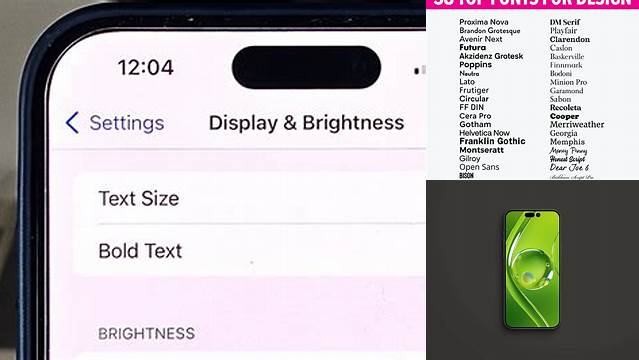
Best Fonts For IPhone 15 Pro: Enhance Readability
Are you looking to enhance your viewing experience on your new iPhone 15 Pro? One of the most impactful ways to do this is by choosing the right font. Fonts play a crucial role in readability, aesthetics, and overall user experience. With the iPhone 15 Pro boasting a stunning display, selecting the perfect font can truly elevate your device's visual appeal and usability. In this article, we will delve into some of the best fonts available for your iPhone 15 Pro, exploring both system fonts and third-party options to help you find the perfect match for your style and needs. We'll consider factors like legibility, character, and how well they perform across various apps and screen sizes. Whether you're aiming for a modern, classic, or unique look, we've got you covered. So, let's jump right in and discover the fonts that will make your iPhone 15 Pro experience even better!
Understanding the Importance of Fonts
Guys, let's talk about why fonts are actually a big deal. You might think, "It's just a font, right?" But trust me, the right font can make a world of difference. Fonts are more than just letters; they're a key part of how we interact with our devices. They affect how easily we can read text, how we perceive the overall design, and even how enjoyable our screen time is. Think about it – have you ever struggled to read text because the font was too small or too fancy? Or have you ever felt that a particular font just perfectly captured the vibe of a website or app? That's the power of typography at work!
On the iPhone 15 Pro, with its amazing display, choosing the right font becomes even more critical. The clarity and sharpness of the screen mean that every detail, including the font, is highlighted. A well-chosen font can make text appear crisp and legible, reducing eye strain and making reading a pleasure. On the flip side, a poorly chosen font can make your content look cluttered and hard to read, even on that beautiful screen. So, understanding the importance of fonts is the first step in creating a more enjoyable and efficient user experience on your iPhone 15 Pro. We’ll break down how different font styles impact readability, and how selecting a font that aligns with your personal aesthetic can truly enhance your device's overall appeal. Plus, we’ll look at how different font choices can affect the accessibility of your device, making it easier for everyone to use. Because at the end of the day, the best font is the one that works best for you.
Default iOS Fonts: A Solid Foundation
Okay, so before we dive into third-party options, let's give some love to the default iOS fonts. Apple has put a lot of thought into its system fonts, and they're actually a pretty solid foundation for most users. The primary font you'll see across iOS is San Francisco, and it's a fantastic choice for readability and clarity. San Francisco was specifically designed by Apple to be legible across a range of devices and screen sizes, which makes it perfect for the iPhone 15 Pro. Its clean, modern lines and balanced letterforms ensure that text looks crisp and clear, whether you're reading a long email, browsing the web, or texting your friends. Plus, San Francisco comes in a variety of weights, from ultra-light to bold, giving you some flexibility in how you want your text to appear.
Beyond San Francisco, iOS also offers a few other default fonts that you might encounter in certain apps or system interfaces. New York is a serif font that offers a more classic and elegant look, while Menlo is a monospaced font that's often used in coding and development environments. These fonts can be great for specific use cases, but San Francisco remains the workhorse for most of the iOS experience. The beauty of sticking with the default fonts is that they're optimized for the iOS ecosystem. They're designed to work seamlessly with the operating system, ensuring consistent rendering and performance across all apps and features. Plus, Apple regularly updates its fonts to improve legibility and address any potential issues. So, if you're looking for a reliable and readable font for your iPhone 15 Pro, the default iOS fonts are a great place to start. But, of course, if you're feeling adventurous, there are plenty of other options out there, which we'll explore next!
Exploring Third-Party Font Options
Alright, let's get into the fun stuff: third-party font options! While the default iOS fonts are great, sometimes you want to add a little personality and spice things up. That's where third-party fonts come in. There's a whole world of typography out there, and exploring different font styles can really transform the look and feel of your iPhone 15 Pro. Whether you're aiming for a bold and modern aesthetic, a classic and sophisticated vibe, or something totally unique and quirky, there's a font out there for you.
Top Font Recommendations for iPhone 15 Pro
So, you're ready to explore some specific font recommendations for your iPhone 15 Pro, huh? Awesome! Let's break down some top contenders, keeping in mind that the best font is ultimately the one that suits your personal preferences and needs. We'll look at a mix of fonts that offer excellent readability, stylish aesthetics, and a great overall user experience.
San Francisco (Default): We've already talked about this one, but it's worth reiterating. San Francisco is Apple's go-to font for a reason. It's incredibly legible, versatile, and designed to look great on iOS devices. If you're looking for a safe bet that will always look good, San Francisco is a fantastic choice.
Roboto: This is a popular sans-serif font that's widely used on Android devices, but it's also available for iOS. Roboto is known for its clean lines, geometric shapes, and excellent readability. It's a great alternative to San Francisco if you're looking for something slightly different but still highly functional.
Open Sans: Open Sans is another excellent sans-serif option that's known for its open forms and neutral appearance. It's highly legible in both print and digital formats, making it a great choice for reading long articles or emails on your iPhone 15 Pro.
Whether you stick with the reliable San Francisco font, experiment with third-party options, or mix and match different styles, the key is to find fonts that you love and that work well for your needs. Don't be afraid to try new things and explore the vast world of typography. Remember, the best font is subjective and depends on your individual preferences and priorities. So, take the time to experiment, test out different options, and discover the fonts that make your iPhone 15 Pro truly your own. By making informed choices about typography, you can create a more comfortable, enjoyable, and visually appealing experience every time you pick up your device. Happy font hunting, and may your iPhone 15 Pro always look its best!